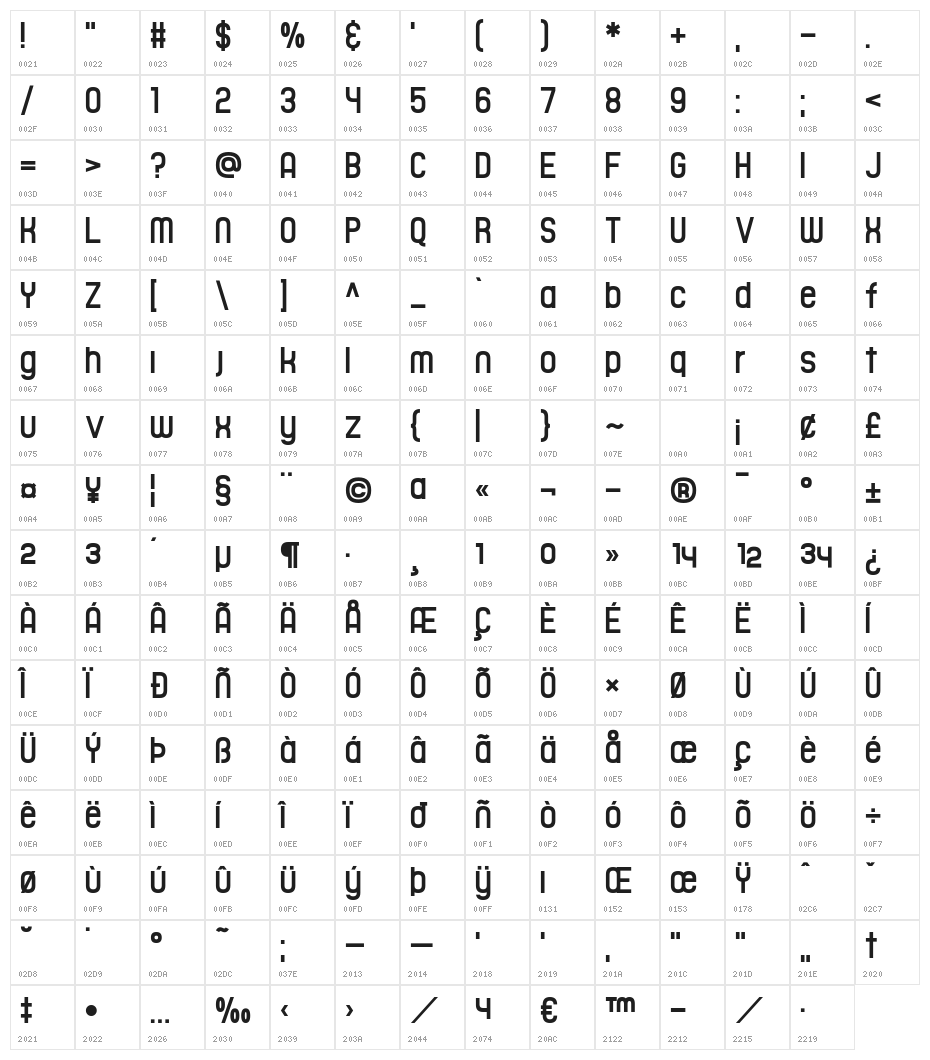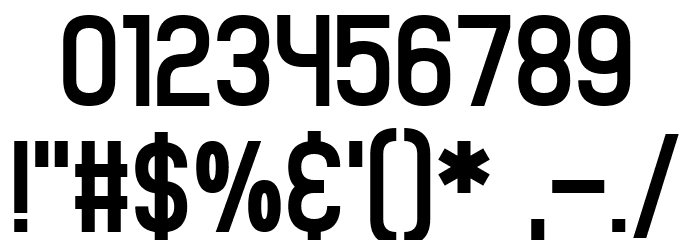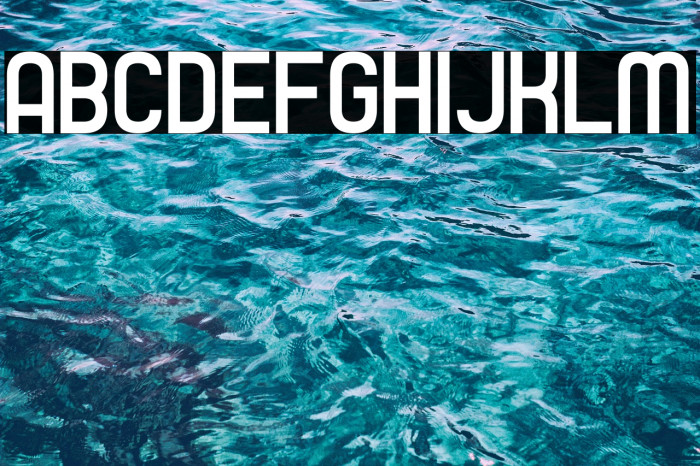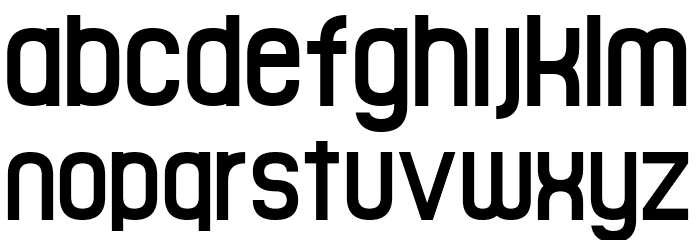
Toon Around Font
Toon Around Description
This font features a playful and rounded design, characterized by its smooth curves and uniform stroke width. The letters are bold and have a consistent height, giving a cohesive and balanced appearance. Its rounded edges and friendly aesthetic make it suitable for informal and fun projects. The numerals and special characters maintain the same playful style, ensuring readability and visual appeal across different uses. The overall look is modern and approachable, making it ideal for creative and engaging designs.